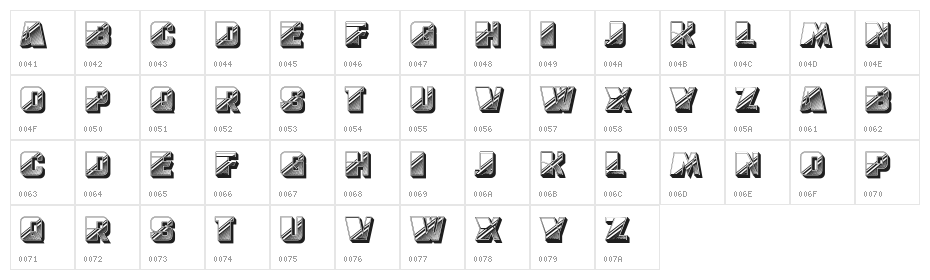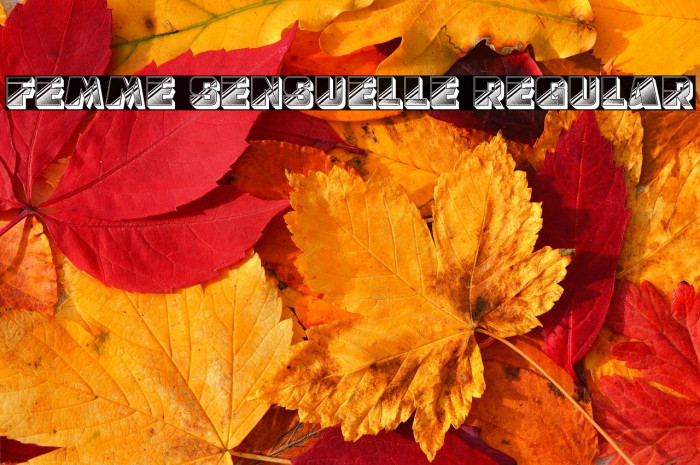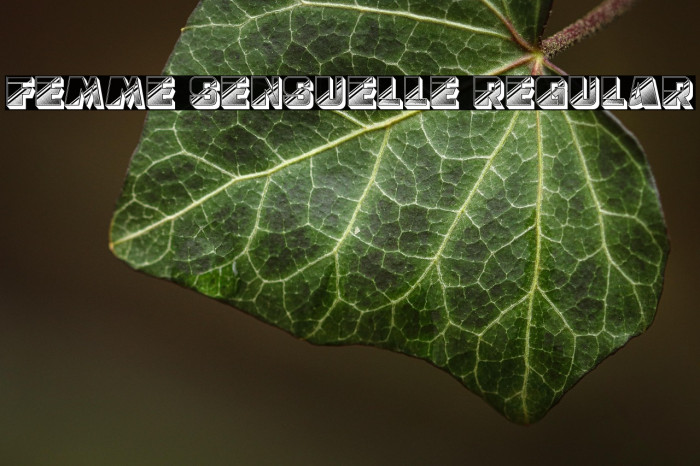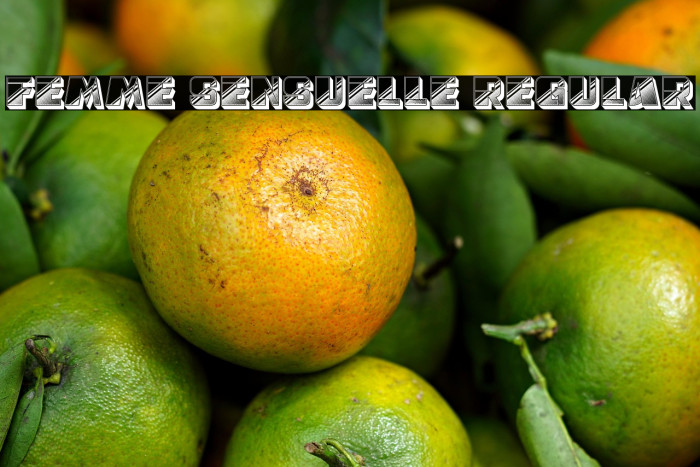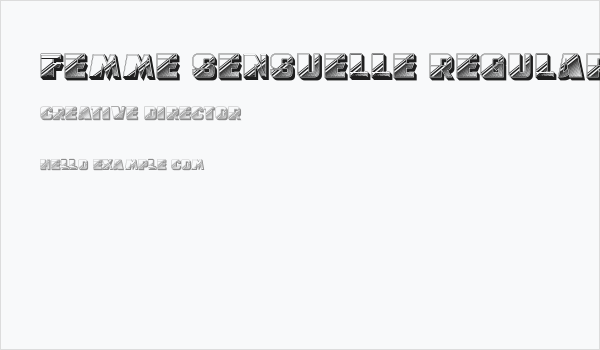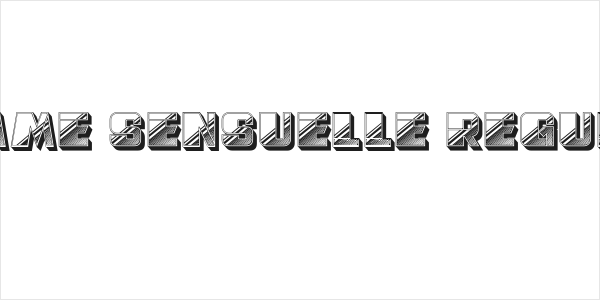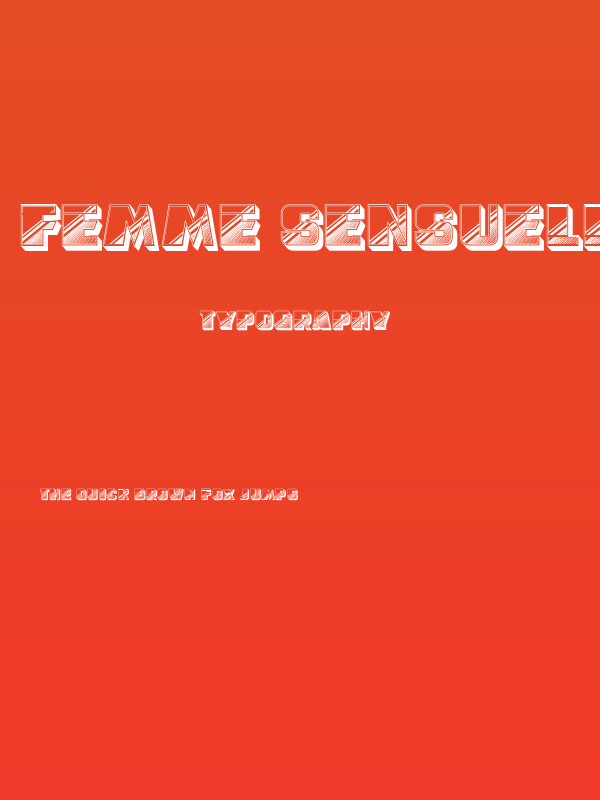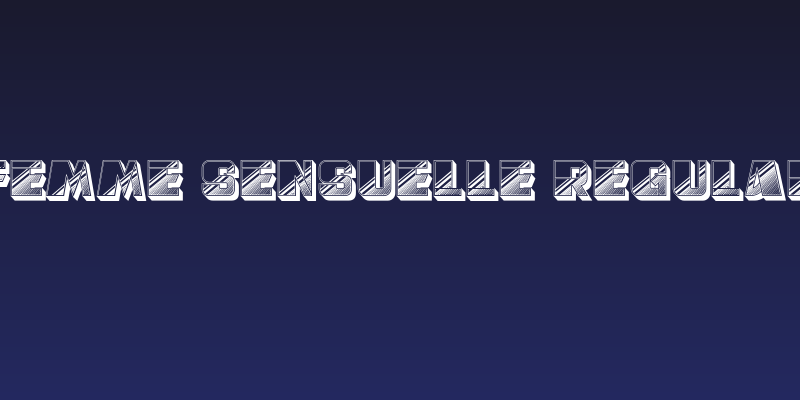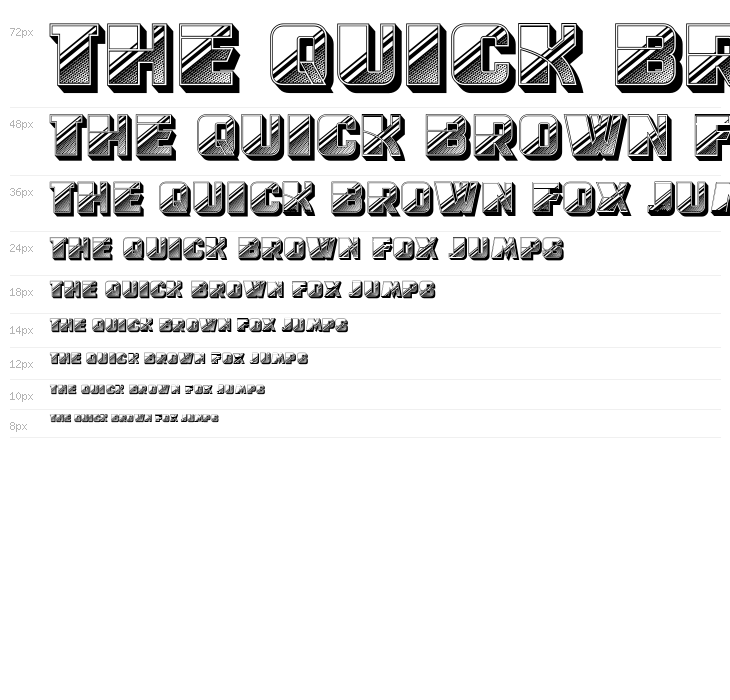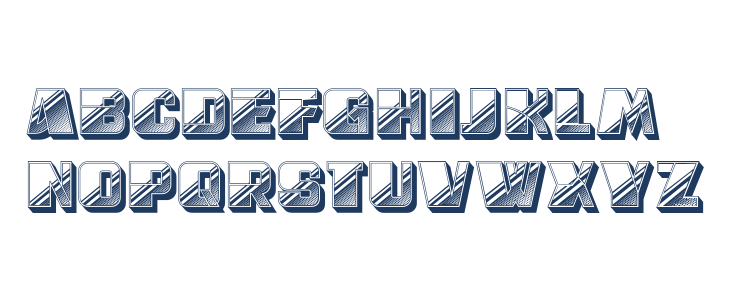
Femme Sensuelle Regular Font
Femme Sensuelle Regular Description
This font features a bold, decorative style with a 3D effect that gives each character a sense of depth and dimension. The letters are outlined with a thick black border, filled with intricate diagonal lines that create a textured appearance. The overall design is eye-catching and dynamic, making it suitable for projects that require a strong visual impact. The uppercase letters are uniform in size, with consistent spacing that maintains readability despite the complex design. This font is ideal for creative projects that aim to stand out.
| Proposed Projects | Ideal for posters, headlines, branding, and any design requiring a striking visual element. |